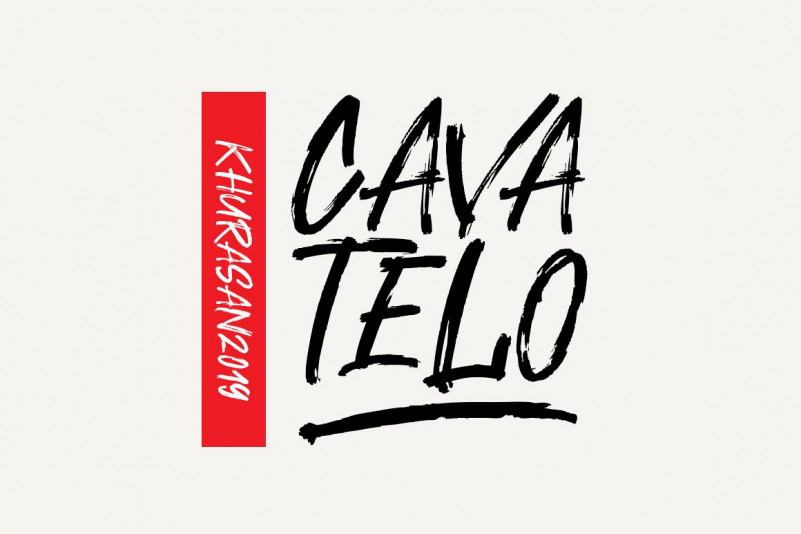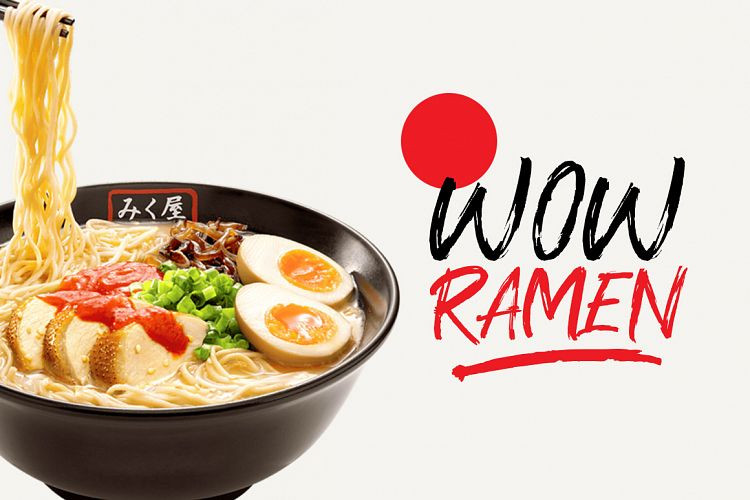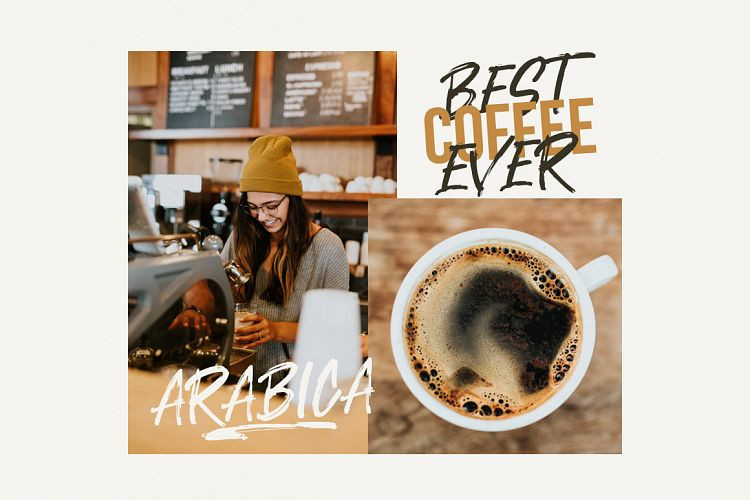
Cavatelo Font
The Cavatelo is new handwritten font brush, elegant and vintage feel character set. The Cavatelo font only set capital letters, as well as multi-lingual support, ,numerals, punctuation & swashes.